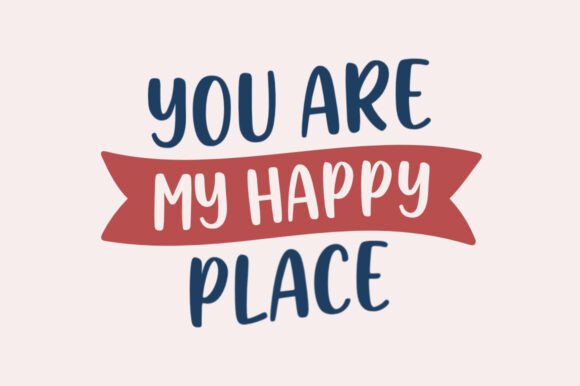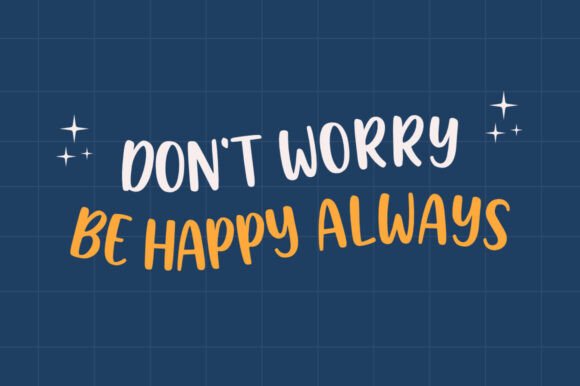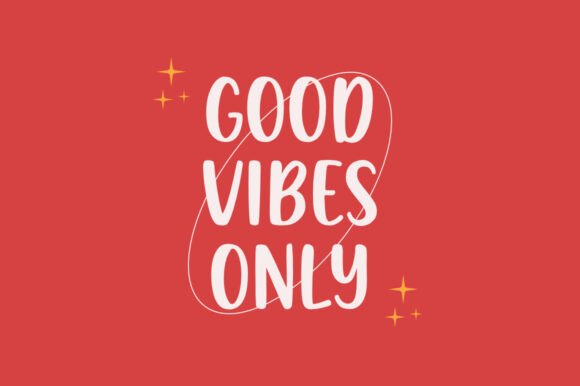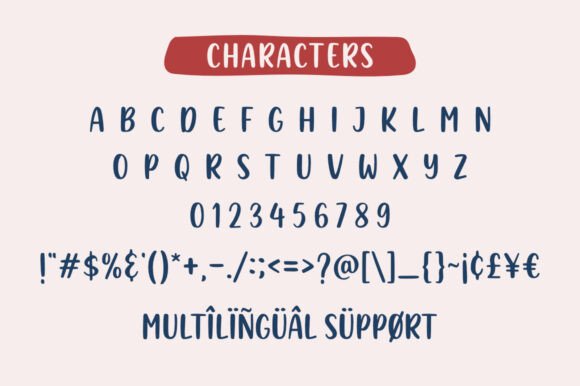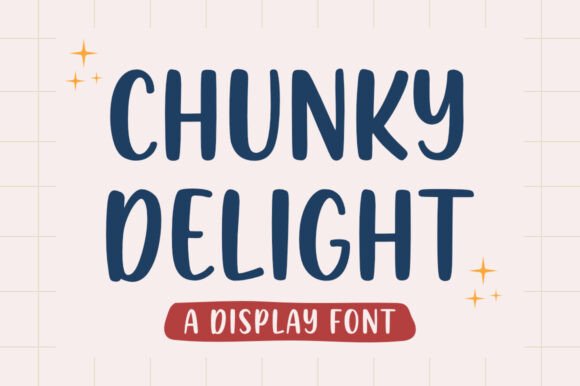
Introducing Chunky Delight Font: Add a Touch of Fun to Your Designs
Are you looking for a font that can bring a playful and whimsical touch to your designs? Look no further than Chunky Delight Font! This fun and handwritten all-caps font is perfect for adding a dash of personality to any project. With its rounded strokes and carefree vibe, Chunky Delight is sure to delight designers and crafters alike.
What Makes Chunky Delight Font Special?
Chunky Delight Font is a unique and eye-catching font that stands out from the crowd. Its handwritten all-caps design gives it a personal and informal feel, making it perfect for projects that require a touch of warmth and friendliness. The rounded strokes add a soft and approachable quality to the font, making it ideal for designs that need to convey a sense of approachability and playfulness.
Chunky Delight Font is a versatile font that can be used for a wide range of projects. Whether you’re designing a logo, crafting a poster, or creating branding materials, this font is sure to bring a smile to your audience’s face. Here are some ideas for projects that Chunky Delight Font is perfect for:
- Logos: Add a playful touch to your logo with Chunky Delight Font. Its unique design makes it perfect for businesses that want to stand out from the crowd.
- Crafting: If you’re a crafter, you’ll love Chunky Delight Font. Use it to add a personal touch to your craft projects, such as handmade cards, gift tags, and scrapbooking.
- Posters: Create eye-catching posters with Chunky Delight Font. Its bold and playful design makes it perfect for advertising events, promotions, and sales.
- Branding: Use Chunky Delight Font to add a touch of personality to your branding materials, such as business cards, brochures, and letterheads.
- Stickers: Create fun and playful stickers with Chunky Delight Font. Its rounded strokes make it perfect for designs that need to convey a sense of friendliness and approachability.
- Sublimation: Use Chunky Delight Font to create unique and personalized sublimation designs, such as custom t-shirts, mugs, and phone cases.
Why Choose Chunky Delight Font?
There are many fonts to choose from, but Chunky Delight Font stands out from the crowd. Here are some reasons why you should choose Chunky Delight Font for your next project:
- Unique Design: Chunky Delight Font has a unique and eye-catching design that will make your projects stand out from the crowd.
- Playful Vibe: This font has a playful and carefree vibe that is perfect for projects that need to convey a sense of fun and approachability.
- Easy to Read: Despite its playful design, Chunky Delight Font is easy to read, making it perfect for projects that require a clear and concise message.
- Versatile: Chunky Delight Font can be used for a wide range of projects, from logos and posters to crafting and sublimation.
How to Use Chunky Delight Font
Using Chunky Delight Font is easy! Here are some tips for getting the most out of this fun and playful font:
- Pair it with Other Fonts: Chunky Delight Font pairs well with other fonts, such as sans-serif fonts and script fonts. Experiment with different combinations to find the perfect look for your project.
- Use it in Large Sizes: Chunky Delight Font is perfect for large sizes, such as posters and signs. Use it to create eye-catching designs that will grab attention.
- Add a Pop of Color: Chunky Delight Font looks great with bright and bold colors. Add a pop of color to your design to make it stand out.
| Font Name | Chunky Delight Font |
Chunky Delight Font is a fun and playful font that is perfect for designers and crafters who want to add a touch of personality to their projects. With its unique design, playful vibe, and versatility, Chunky Delight Font is sure to delight. Whether you’re designing a logo, crafting a poster, or creating branding materials, Chunky Delight Font is the perfect choice. So why wait? Download Chunky Delight Font today and start adding a touch of fun to your designs!